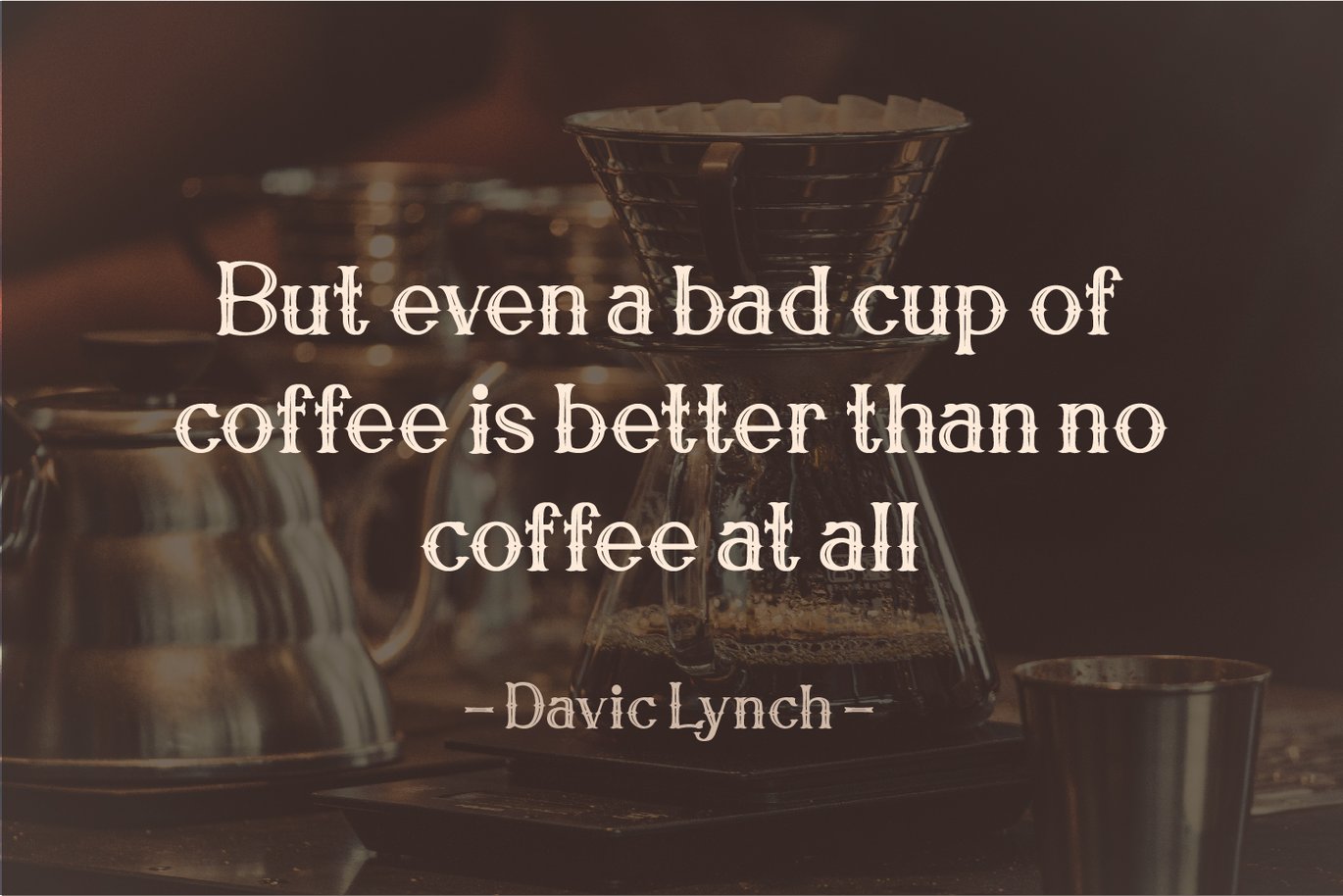
Royal King Vintage Serif Modern Font
Unique, playful and versatile serif with ligatures and alternates that you can combine to get curves and beautiful shapes just in seconds.
This font is suitable for use in many design forms, for example magazines, postcards, logos, DIY Projects, invitation card, quotes, vintage look design, old classic ,60s, 70s, 80s era, wedding projects and much more. We recommend using Adobe Illustrator or Photoshop.
Ligature: tt, fi, gj, ft, fb, jj, fj